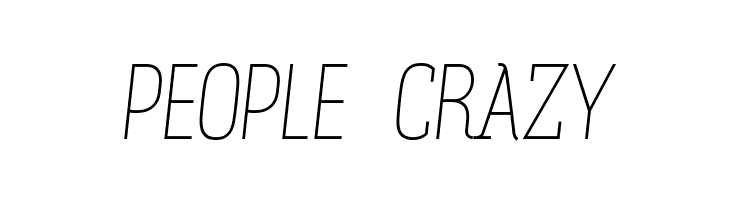
Zowieyoë Font
A modern, sleek font with tall, narrow characters and a minimalist aesthetic.
Zowieyoë Italic Font
A sleek, italicized font with elongated, modern letterforms.